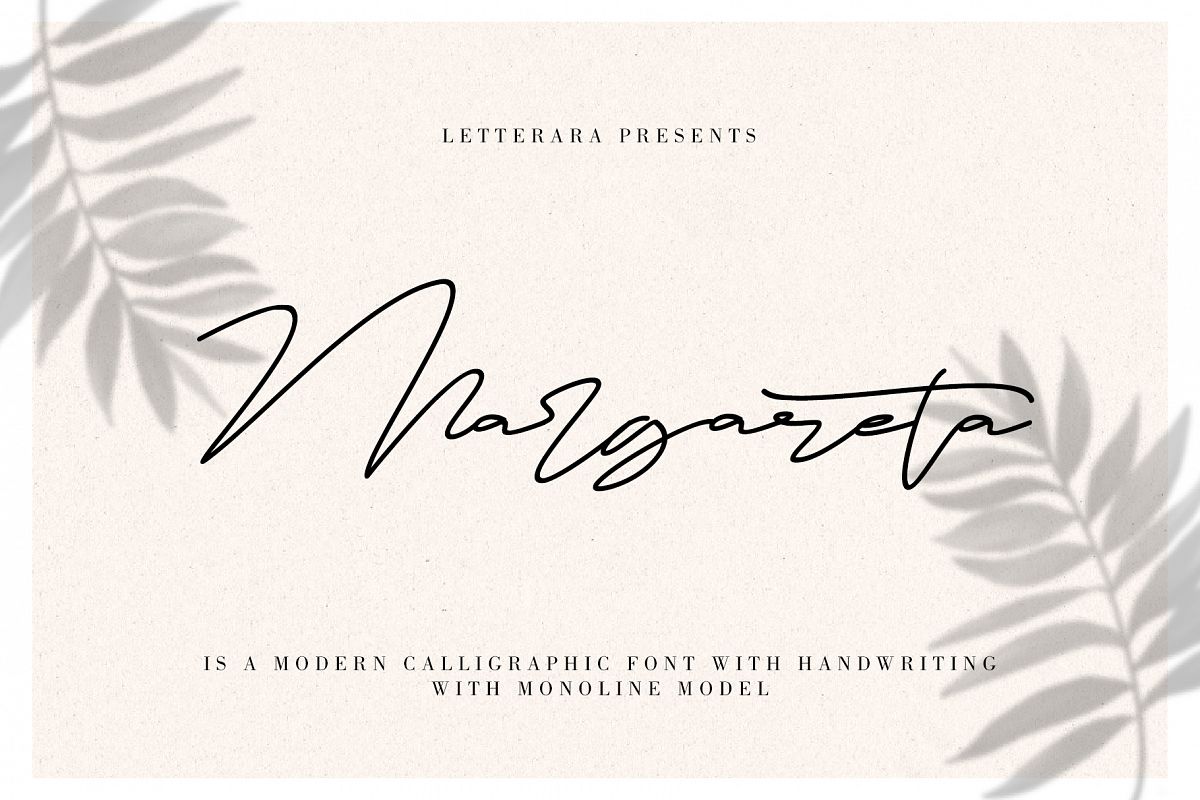
Margareta is a modern calligraphic font with handwriting with a mono-line model.  It's perfect for branding, logo, wedding
invitations, diaries, cups, mugs and greeting cards and any other.
• The style in this font includes: Regular
& Italic
• 103 Ligatures
• Support multilingual; ä ö ü Ä Ö Ü ß ¿
¡